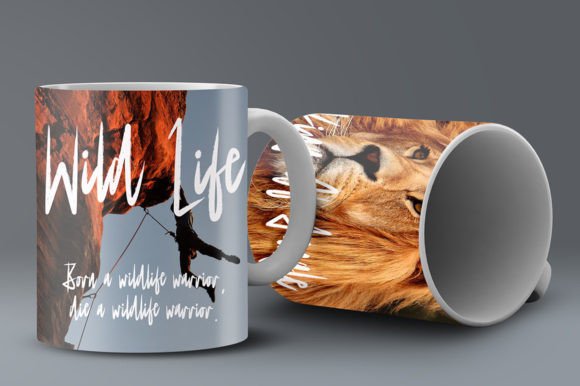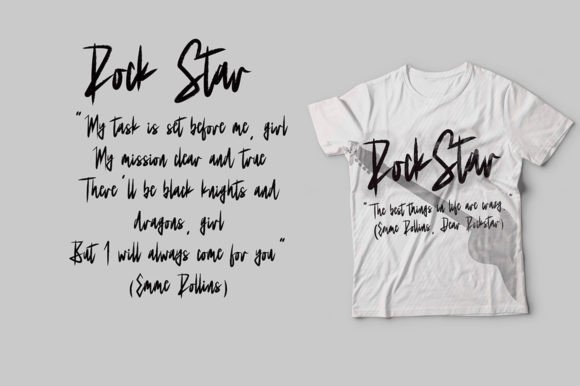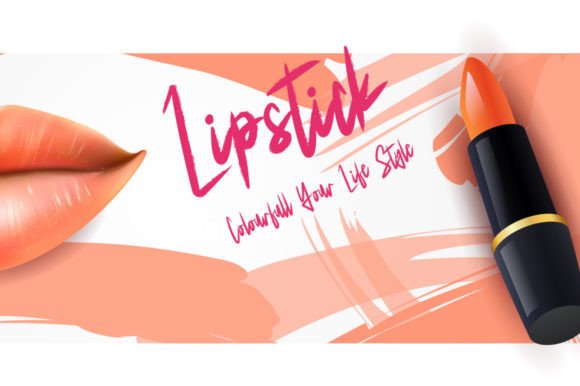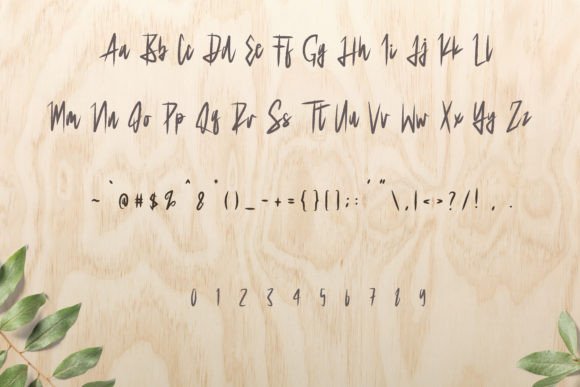
About Life in Adventure Font
Introducing “Life in Adventure,” a trendy and cool brush-style handwritten font that injects a dynamic and contemporary vibe into your projects. This font is not just trendy; it’s a creative tool that promises to amaze you with the outcome it generates.
The brush-style design of “Life in Adventure” brings a sense of energy and spontaneity to your text. Whether you’re working on posters, social media graphics, or any other design project, this font adapts seamlessly, adding a trendy and cool aesthetic that catches the eye.
Picture “Life in Adventure” confidently integrated into your designs, where it becomes a key contributor to their dynamic and modern appeal. Whether you’re aiming for a laid-back or edgy look, this font is ready to enhance the visual impact of your creative endeavors.
In summary, “Life in Adventure” is more than just a font; it’s a trendy and cool design asset that elevates your projects. Embrace its brush-style confidently, and let it amaze you with the vibrant and contemporary outcome it brings to your creative work. Let “Life in Adventure” be the choice that adds an extra dose of style and excitement to your designs, making them memorable and visually compelling.